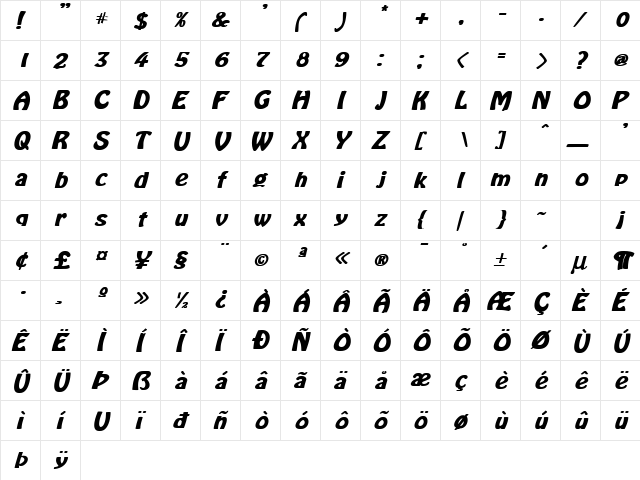
LaCosta-BoldIta Normal
Design Context for LaCosta-BoldIta Typeface
LaCosta-BoldIta takes a measured approach to typography — its balanced proportions and neutral character make it a reliable workhorse for both digital and print work. The heavy weight commands attention and anchors typographic hierarchies.